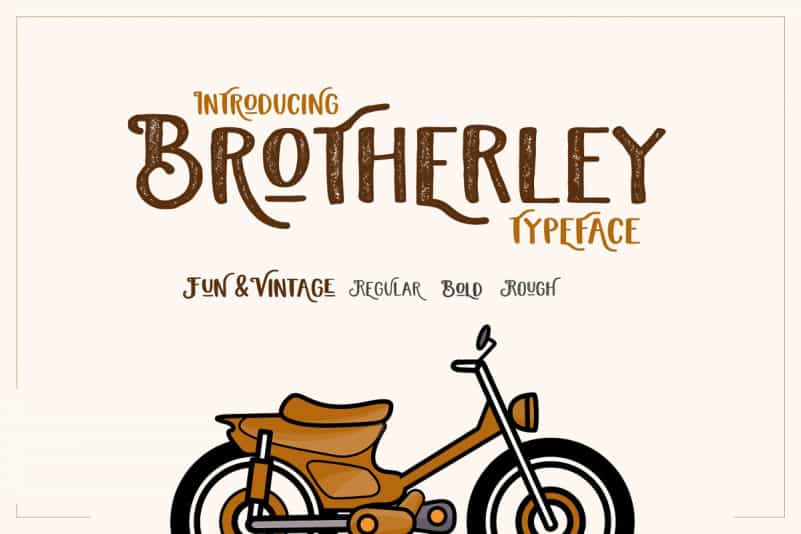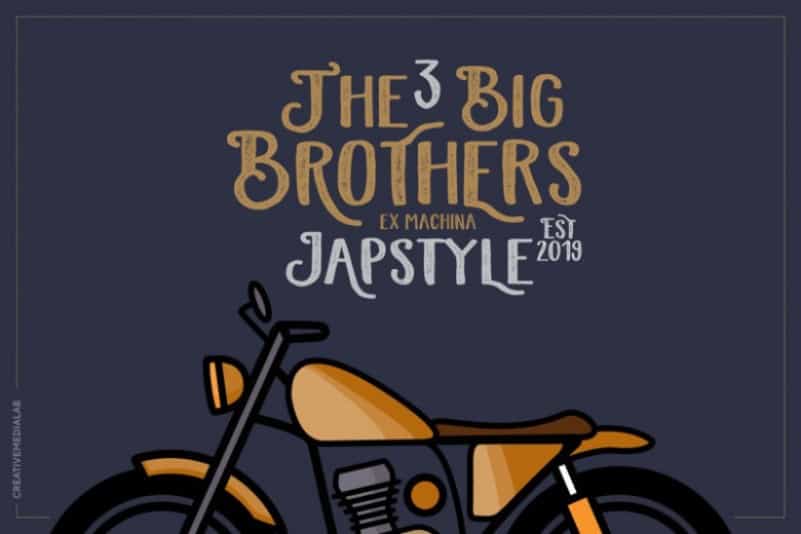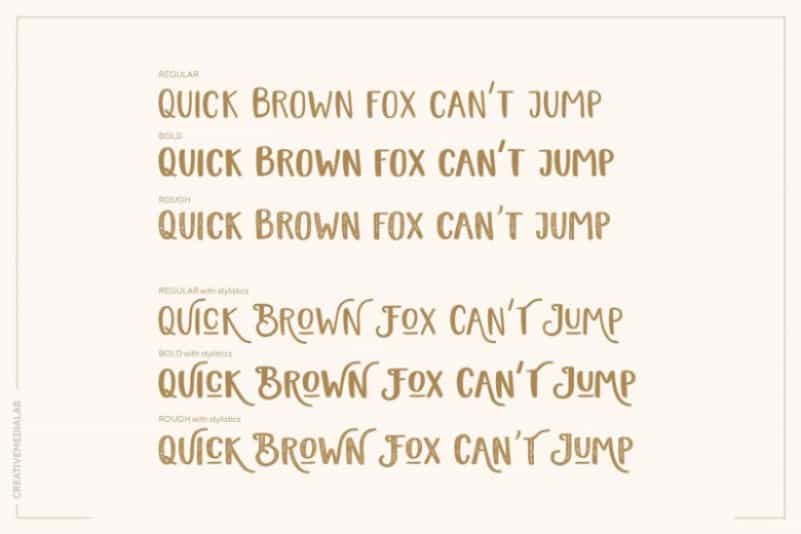
Discover Brotherley Typeface, part of the Sans Serif Display Comic collection—a versatile and unique font perfect for adding a personal touch to your projects. Download it for free and enjoy crafting designs with style, from invitations to social media posts. This font is available exclusively for personal use, giving you the freedom to create without limits. Unlock your creativity with Brotherley Typeface today!
Brotherley Font: introduced by Brotherley Typeface is a vintage font in a modern style, fun and handmade Author Studioletter. Brotherley Typeface consists of 3 types, regular, bold, and rough style. including stylistic features on some characters that can be adjusted to the sentence in your design. Brotherley Than vintage fonts in general, it is also suitable for kids and adult tshirt designs. posters, logos, branding, or other design needs.